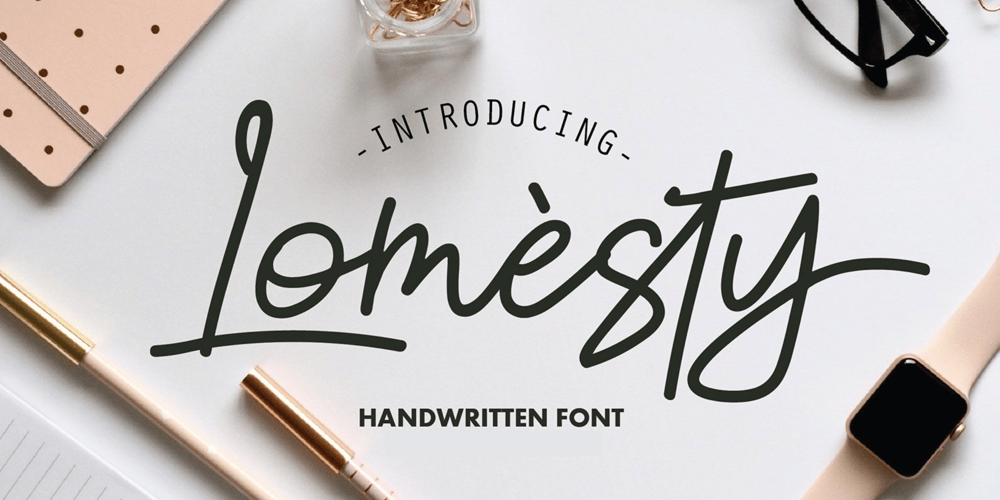
Lomesty Font Family was designed by Irpan Maulana and published by Sabrcreative. Lomesty contains 1 styles and family package options. Introducing Lomesty, a captivating signature monoline font that exudes elegance and style. Designed with precision and attention to detail, Lomesty is the perfect choice for adding a touch of sophistication to your projects. Whether you’re creating wedding invitations, branding materials, or personal stationery, this font will leave a lasting impression.With its seamless integration of uppercase and lowercase letters, Lomesty offers versatility and flexibility in your designs. Its extensive range of numbers and punctuations ensures consistency and harmony throughout your typography.Lomesty goes beyond language barriers with its multilingual support, allowing you to express yourself in various languages and cater to a diverse audience. From English to Spanish, French to German, Lomesty has got you covered.Unlock the full potential of Lomesty with its PUA encoding, which provides easy access to alternate glyphs and ligatures. This feature enhances the flow and uniqueness of your designs, making them truly stand out.Experience the beauty and finesse of Lomesty, where every stroke embodies elegance. Let this signature monoline font elevate your projects and bring them to life. Whether it’s a logo, a website, or an art print, Lomesty will leave a lasting impression.